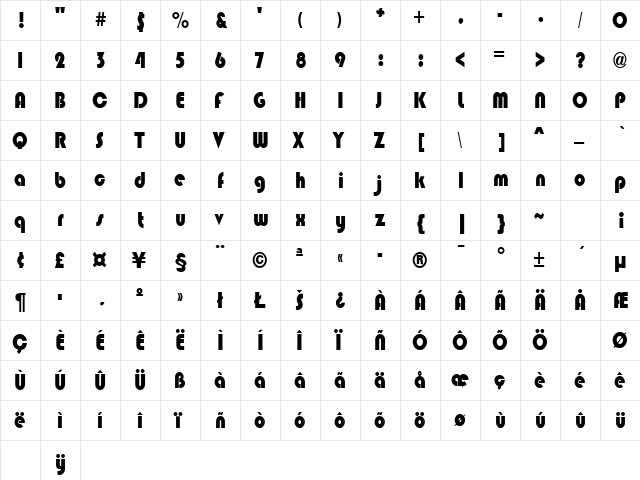
BRINLEB Regular
Design Context for BRINLEB Typeface
BRINLEB takes a measured approach to typography — its balanced proportions and neutral character make it a reliable workhorse for both digital and print work.